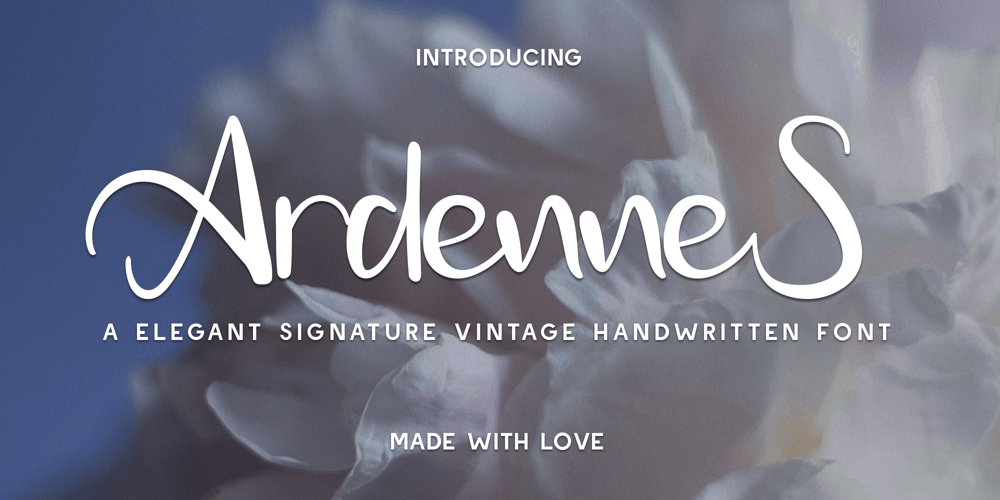
Ardennes
Ardennes font
Ardennes Font Family was designed by Gilang Mei Nugraha, Frederik Aristaputra and published by Creatifont Studio. Ardennes contains 1 styles and family package options. Ardennes is a sophisticated signature handwritten font that captures elegance and personal charm. With its dynamic strokes, this font flows effortlessly, bringing a refined, stylish touch to any design. Ardennes offers a variety of alternates and ligatures, making it versatile and full of unique character options. Ideal for branding, logos, social media graphics, and wedding stationery, this font exudes a romantic, vintage flair while remaining modern and fresh. Perfect for adding a delicate yet impactful signature to your work, Ardennes is crafted with love to elevate your creative projects with beauty and style.A SUMMARY OF WHAT’S INCLUDED: Standard Character A-Z, a-z, 0-9, Punctuation & symbols Regular Style Multilingual Support Include Alternates and Ligatures Works on PC & Mac Simple installation Accessible in Adobe Creative Suite (Ai, Ps, Id, etc.) even work on Microsoft Word. PUA Encoded Characters – Fully accessible without additional design software. 🌟If you come across any issues or notice anything we might have overlooked while using this product, please feel free to reach out to us. We greatly value your feedback as it helps us enhance and refine our products. Thank you!